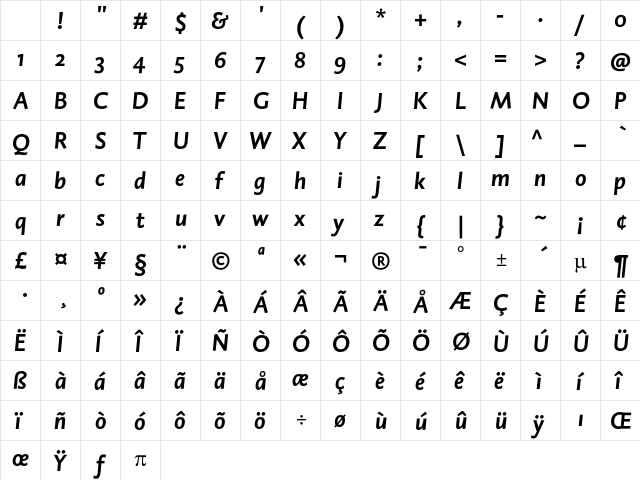
Complete DTL Caspari ST Bold Italic glyph index. Displaying only characters natively supported by DTL Caspari ST Bold Italic font.
DTL Caspari is a composed and adaptable typeface that performs quietly and consistently across a wide range of design contexts. The slanted form adds forward momentum and visual energy. Its bold stroke weight gives it real presence on the page.
Pro Tip: Use DTL Caspari for emphasis, pull quotes, and subheadings where its slanted energy can add rhythm to the layout.